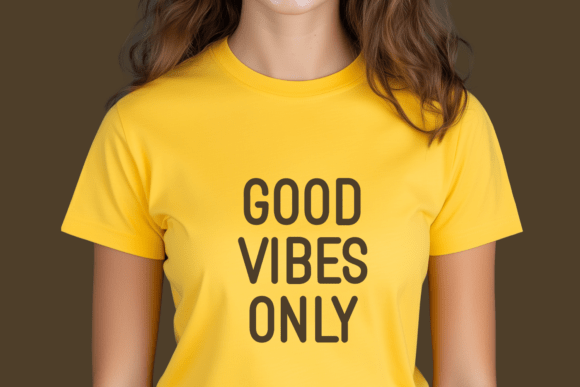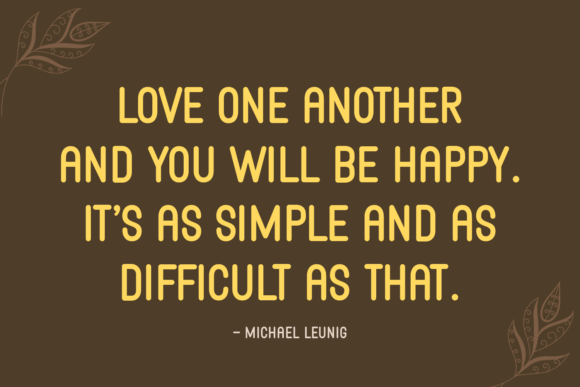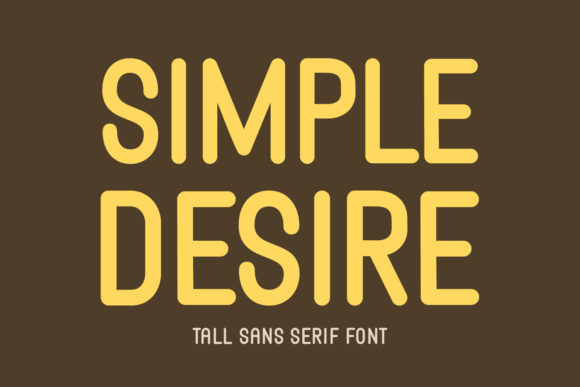
Introduction to Simple Desire Font
Simple Desire is a beautiful and bold sans serif font designed with a soft, unique touch.
Its distinctive strokes give it a special character, making it meaningful and versatile for future use With various characters, it’s perfect for design projects, crafts, and other creative works.